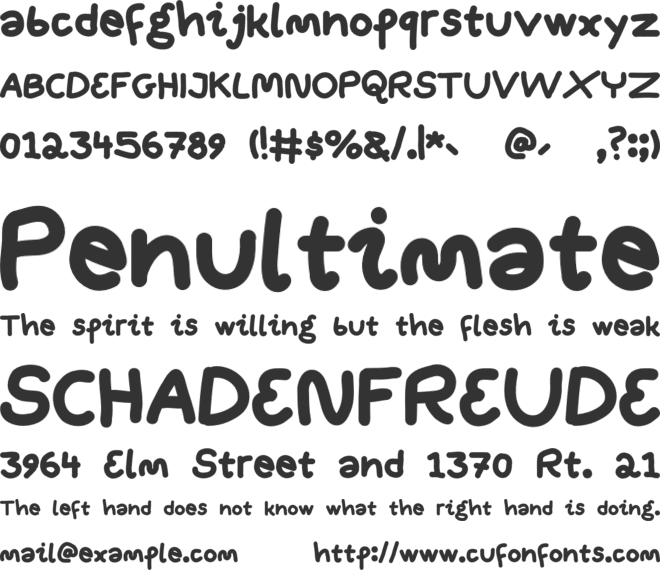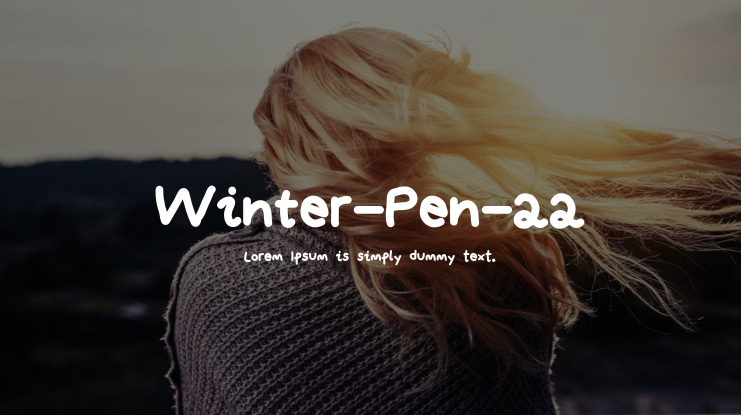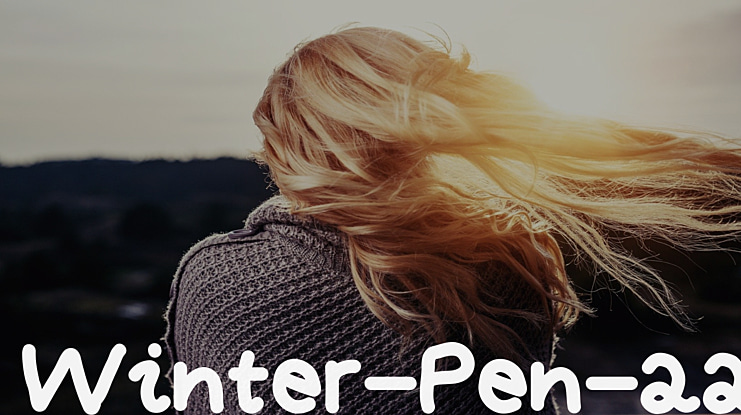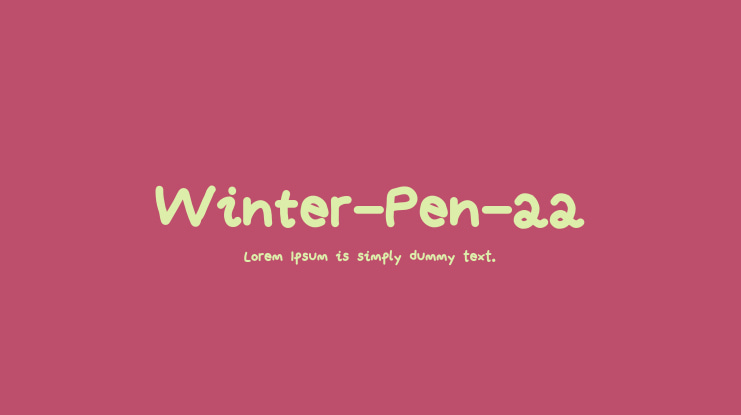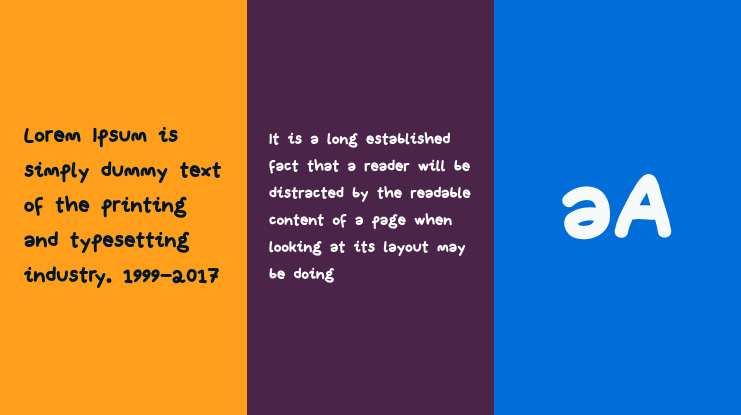
Winter-Pen-22 Font
This font is inspired by all my warm childhood memories of reading comics. It has a very friendly character. Perfect for posters and comics and such!